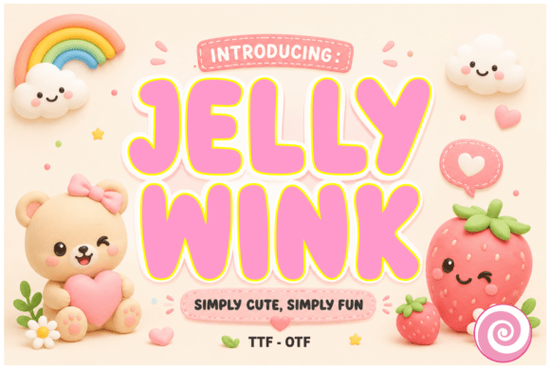
Finding the right typeface for children's products or cute crafts usually means looking for soft edges and friendly shapes. The Jellywink font is a playful, kawaii-inspired display typeface built exactly for this purpose. Its plump, jelly-like letterforms give off a cozy and sweet vibe, making it a highly practical choice for crafters, print-on-demand sellers, and hobbyists who need a reliable, easy-to-cut bubbly style. Whether you are making custom birthday shirts or designing digital stickers, having a go-to rounded typeface saves time and ensures your final product looks polished.
What makes a bubbly typeface work for kids' crafts?
When designing for baby showers, birthdays, or children's apparel, readability and approachability are key. This typeface uses thick, rounded strokes that feel soft and inviting. Unlike sharp or highly ornate scripts, the wide and juicy letters are instantly recognizable, even for early readers. The generous spacing between characters also prevents the design from looking cluttered when scaled down for small items like keychains.
How do you cut thick, plump letters with a vinyl cutter?
One of the biggest frustrations for crafters is weeding intricate, thin fonts. Because this design features solid, wide bases and smooth curves, it is fully optimized for cutting machines like Cricut and Silhouette. The letters hold together well on the cutting mat without tearing.
While bold, athletic styles might require different weeding techniques much like when you work with high-impact athletic lettering soft rounded edges generally peel up cleanly in one smooth motion.
Which projects benefit most from a cozy, kawaii aesthetic?
This specific style shines in markets that rely on warmth, nostalgia, and fun. Small business owners and print-on-demand sellers will find it highly effective for a wide range of merchandise.
- Apparel: Cute graphic tees, toddler onesies, and family reunion shirts.
- Paper Goods: Greeting cards, party invitations, and scrapbooking stickers.
- Drinkware: Decals for tumblers, mugs, and water bottles.
- Nursery Decor: Wooden name signs, wall decals, and milestone blankets.
If you are designing a multi-page product, like a party planning kit, you can balance the heavy, playful headings by using clean minimalist typefaces for the smaller body text. This keeps the layout readable without losing the fun theme.
How should you pair a playful display style with other typefaces?
Mixing fonts can be tricky when your primary typeface has so much personality. The general rule is to let the bubbly letters be the star of the show. Pair them with simple, highly legible sans-serifs for secondary information like dates or locations.
For example, if you are creating a baby shower invitation, you might use a delicate script for the baby's name, similar to the elegant strokes found in modern calligraphy styles. Then, use the plump display font for the main event title.
Alternatively, if you want a more rustic contrast for a wood-sign project, pairing it with a sturdy serif, much like the structured feel of classic western serifs, can create a unique look. Just ensure the secondary font does not compete for attention.
Before you send your design to the cutter or the printer, run through this quick list to ensure your final piece looks its best:
- Check the kerning: Manually adjust spacing if needed, especially around wide letters like 'W' or 'M'.